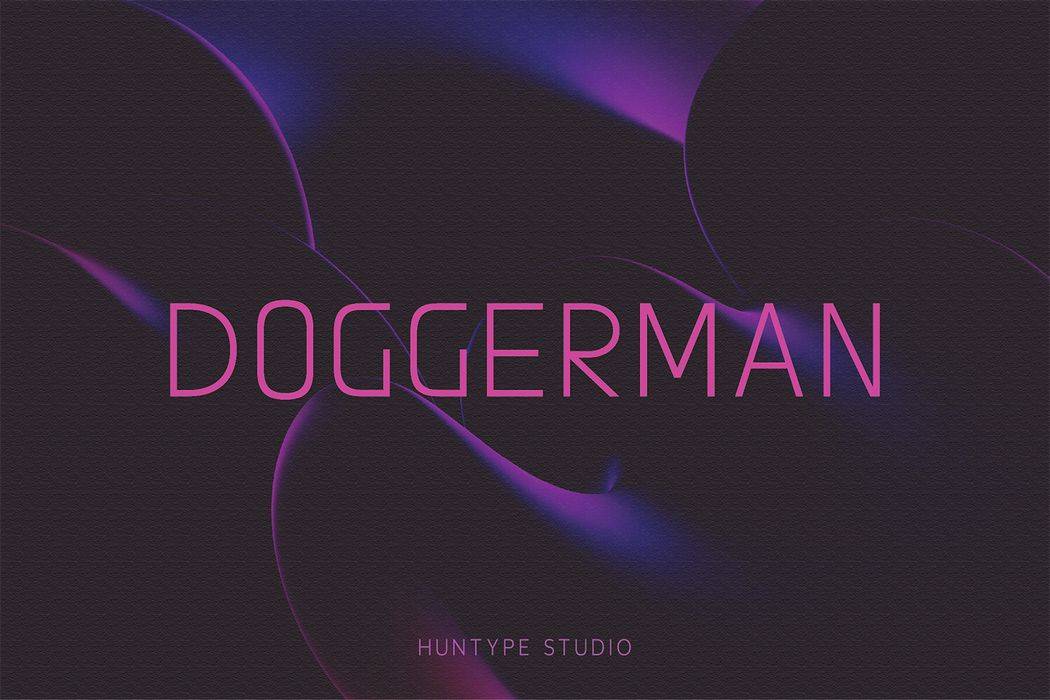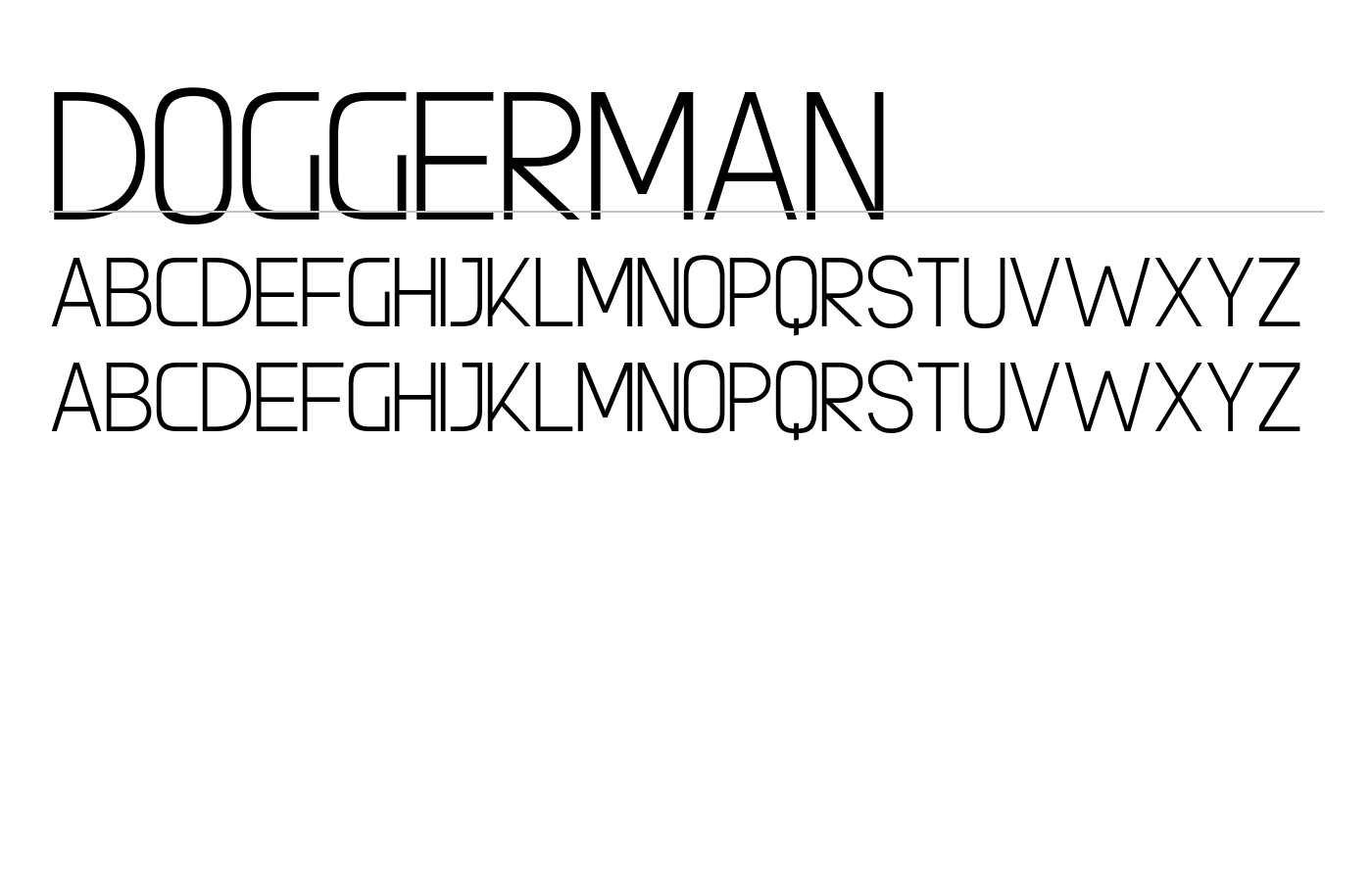
Doggerman is a sleek, modern sans serif font with an ultra-light weight and narrow, condensed width. Its tall x-height and low contrast strokes give it a clean, geometric feel, while subtle sharp edges add a touch of sophistication. This font works beautifully for contemporary branding, fashion headlines, and editorial layouts that seek a minimalist yet refined aesthetic.
Doggerman Font
About Doggerman Font